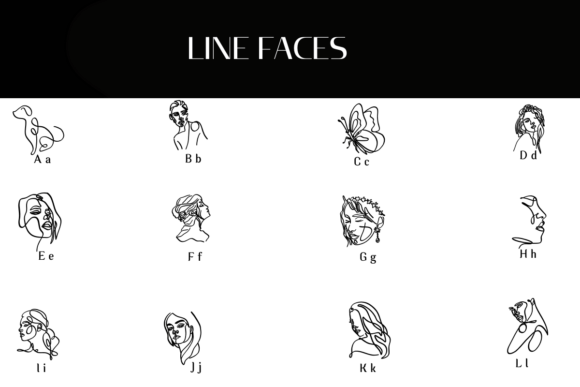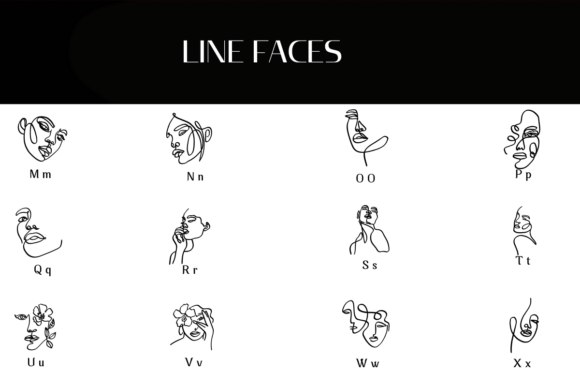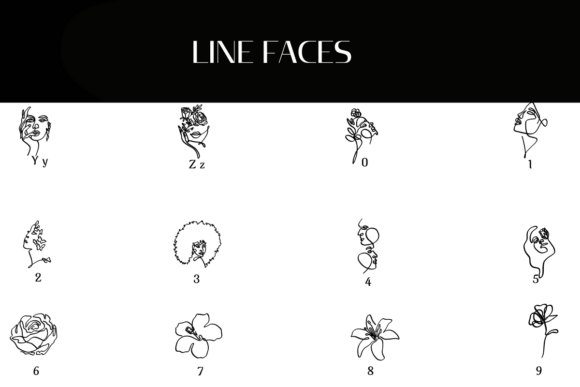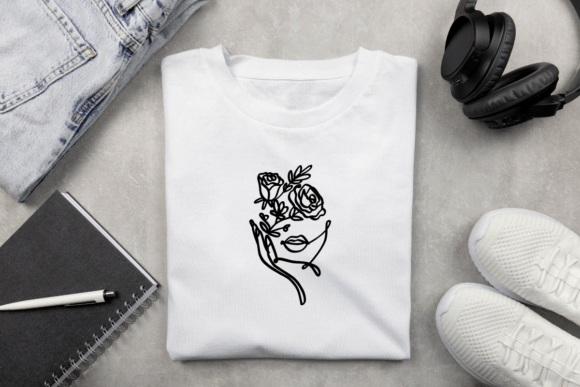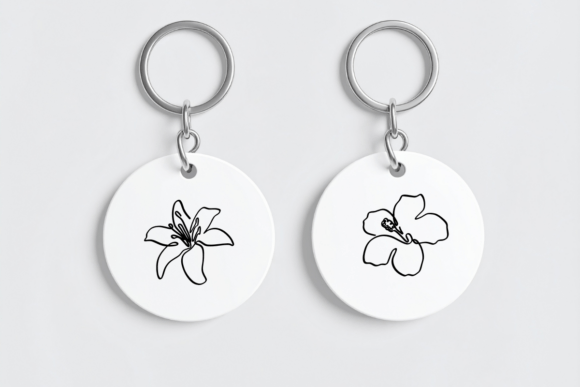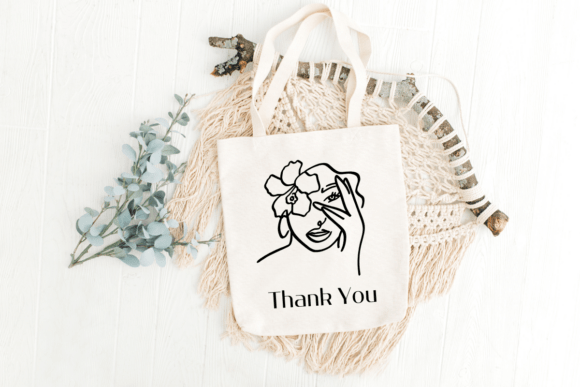
Unlocking the Fun of Line Faces Font
Remember that moment when you’re working on a creative project, and you need just the right element to bring it all together? For designers, those ‘aha’ moments can be a game-changer. And for those looking to add a dash of whimsy to their work, there’s a font that’s sure to deliver: the Line Faces Font.
This fun dingbats font is a treasure trove of quirky characters, perfect for designers seeking a unique design resource. With its high-quality characters, Line Faces Font is ideal for adding a touch of personality to any project, whether it’s a web design, social media graphic, or even a simple illustration. The best part? It’s available for free download, making it an accessible and valuable addition to any designer’s toolkit.
Key Features of Line Faces Font
- High-quality design resource suitable for creative projects, including logos, graphics, and digital art.
- Characterized by its unique, line-based design, which adds a touch of sophistication and elegance to any creative project.
- Perfect for designers who value a high-quality, professional font that is both versatile and easy to use.
Honest Review: Line Faces Font
As a designer, I’m always on the lookout for high-quality design resources to elevate my creative projects. Recently, I stumbled upon Line Faces Font, and I’m excited to share my honest review with you.
What works well: ✨ The Line Faces Font is incredibly versatile, making it perfect for a wide range of design projects, from logos to posters. The font’s unique style and elegant feel make it a great addition to any design portfolio. The transparent background feature is also a huge plus, allowing for seamless integration into various design elements.
Here are some key features that make Line Faces Font stand out:
- High-quality design that’s perfect for logos, posters, and other creative projects
- Transparent background for easy integration into various design elements
Limitations: ⚠️ While Line Faces Font is a great addition to any design resource library, it may not be suitable for every project. The font’s unique style may not appeal to all designers, and the lack of bold weights may limit its use in certain design applications.
Overall, I’m impressed with Line Faces Font and would recommend it to designers looking for a high-quality, versatile font to add to their creative projects.
Line Faces Font
To get the most out of the Line Faces Font, use it in combination with other design elements to create a visually appealing design. Experiment with different font sizes, colors, and backgrounds to find the perfect balance for your creative project.
The Line Faces Font is commonly used in logos, brochures, and business cards. Its clean and modern design makes it perfect for any creative project that requires a professional look. You can also use it in social media graphics, presentations, and documents to add a touch of elegance and sophistication.